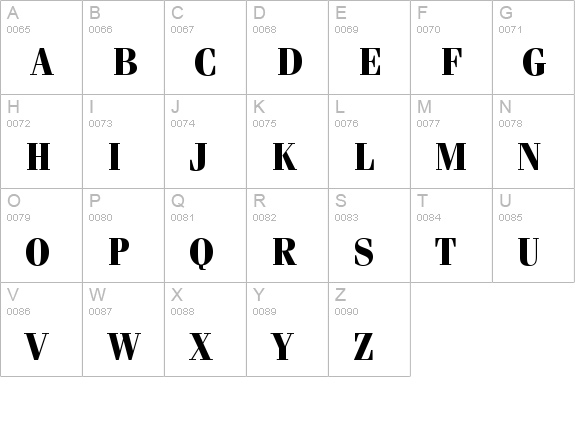
FeniceEF-Bold is a strong, high-contrast variant in the FeniceEF typeface family \xE2\x80\x94 well suited to headlines, attention-grabbing titles, and strong calls-to-action.
FeniceEF-Bold is a stunning and modern font that exudes elegance and sophistication. Its bold and striking appearance makes it perfect for creating eye-catching designs that demand attention. With its clean lines and sleek curves, FeniceEF-Bold is versatile and can be used for various design projects, from branding to packaging to editorial design. What makes FeniceEF-Bold even more appealing is that it is available for free download at FontsMarket.com. This means that you can easily access this beautiful font without any cost, making it a valuable addition to your design toolkit. Don't miss out on the opportunity to enhance your projects with the bold and stylish FeniceEF-Bold font, now freely available for download.